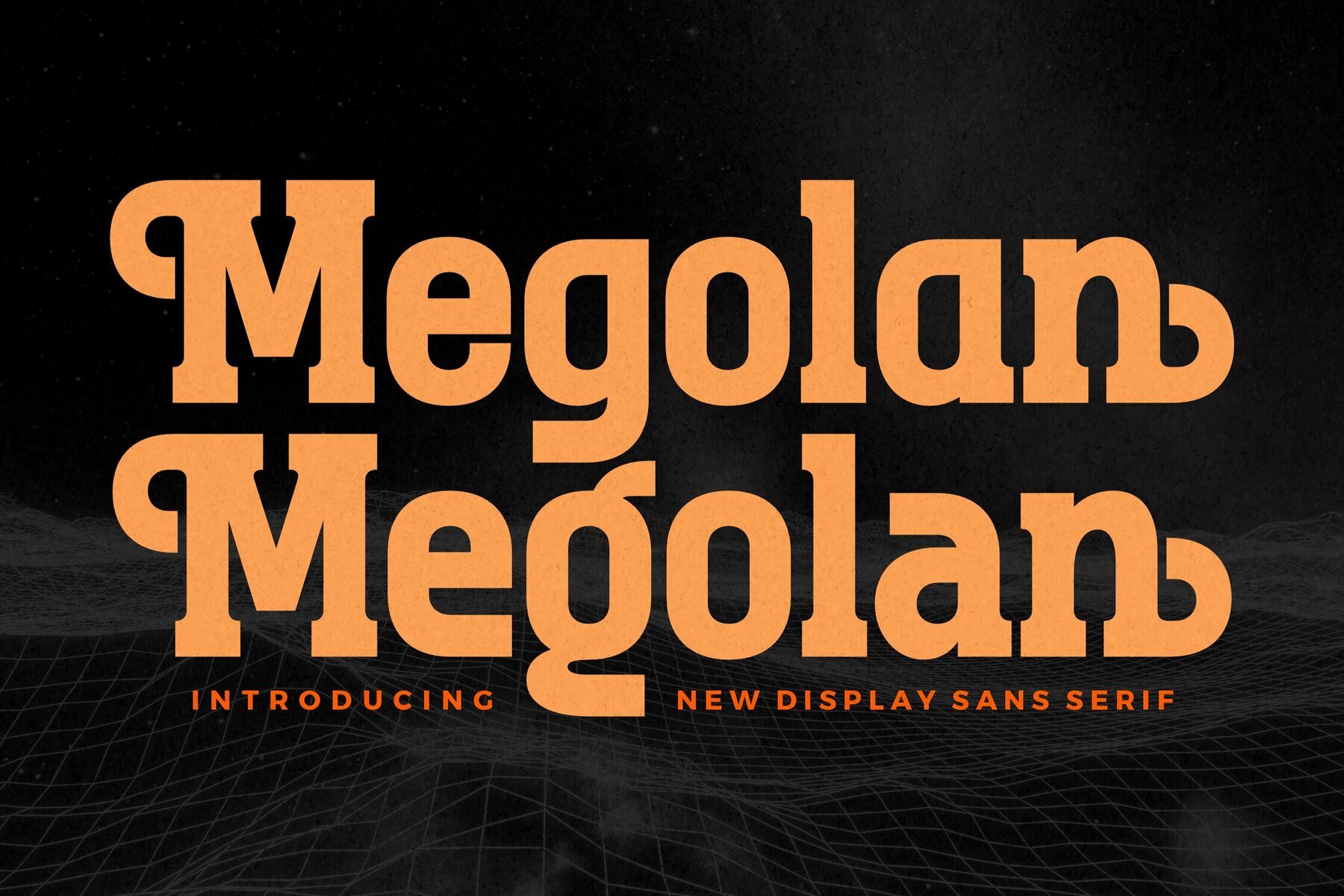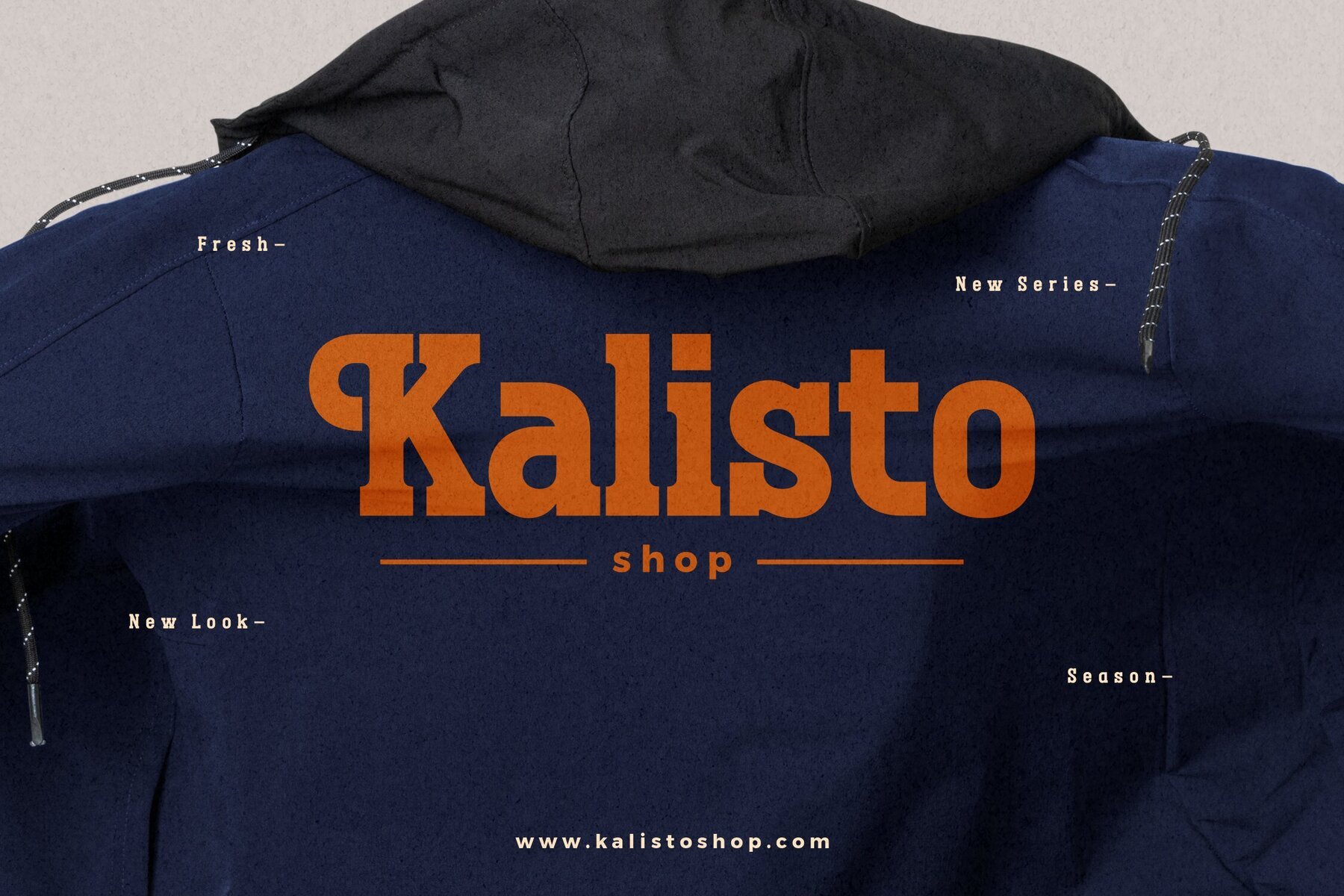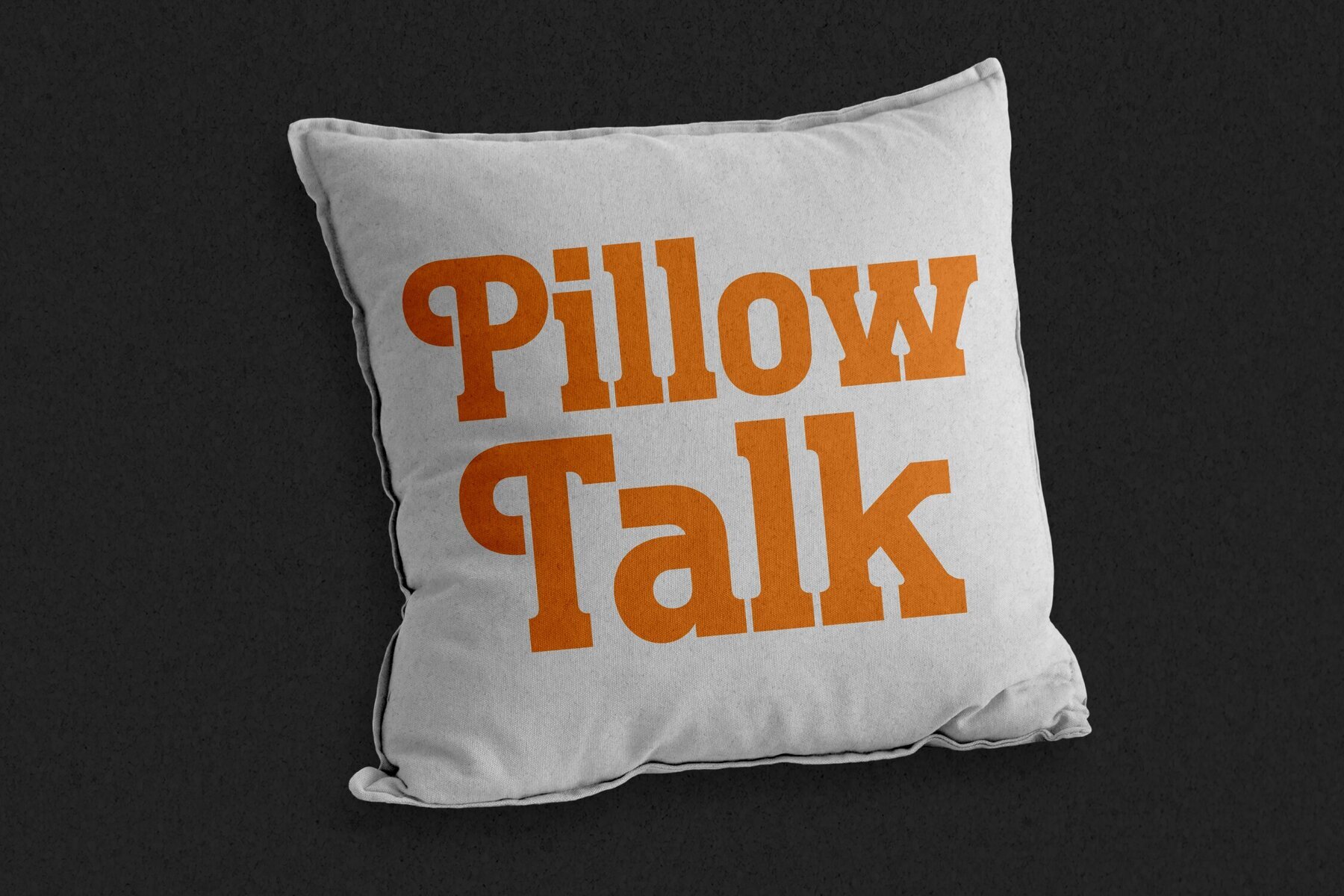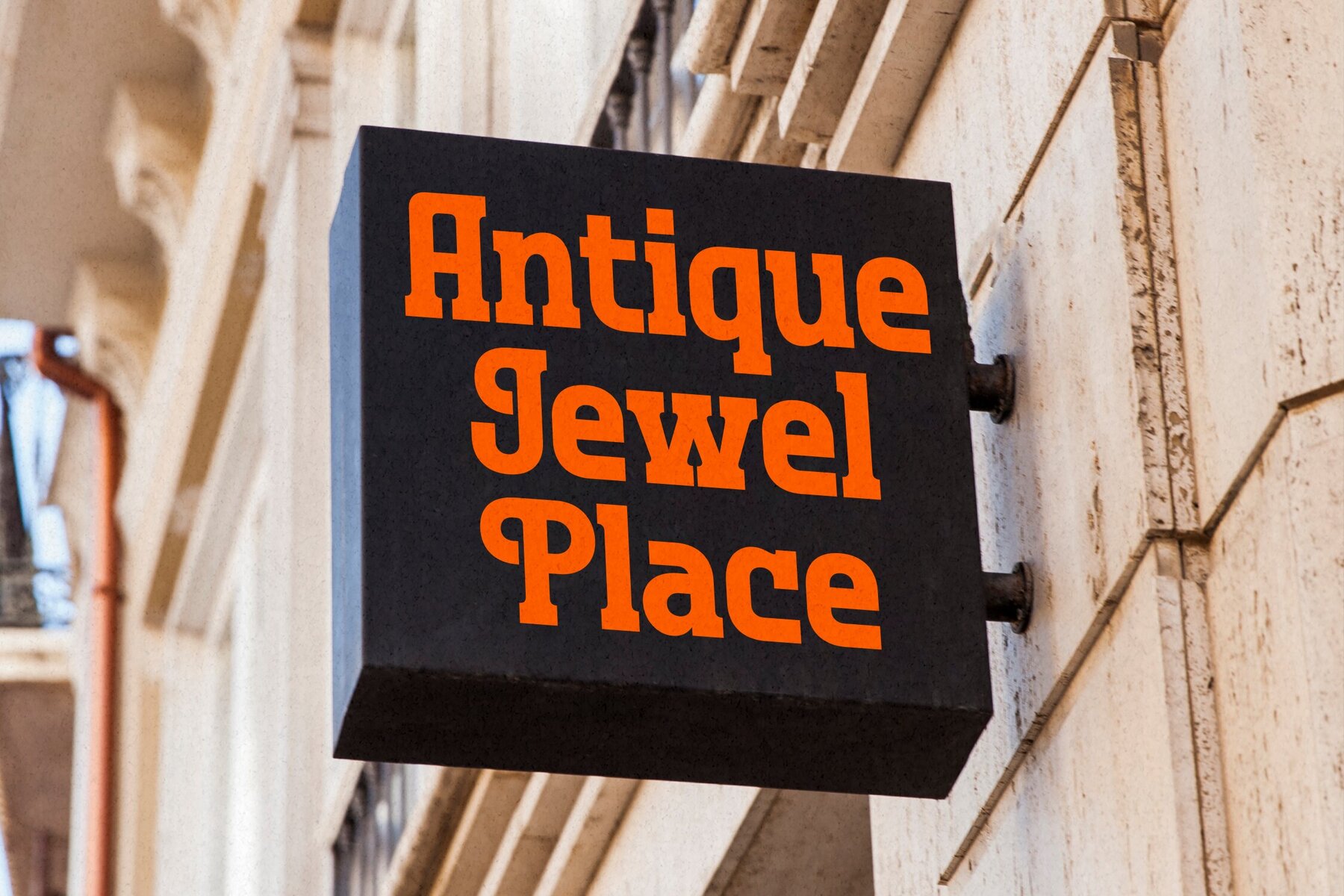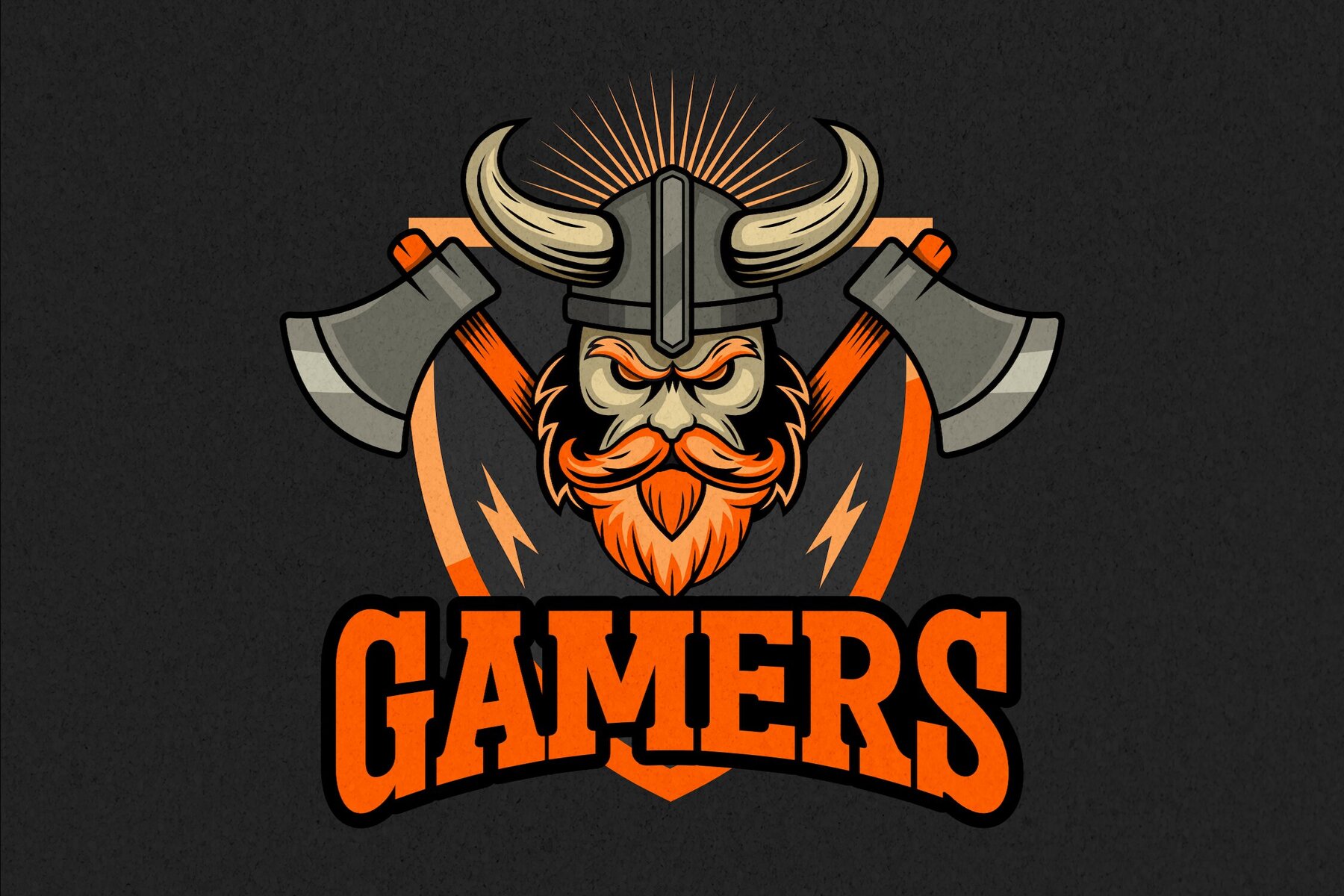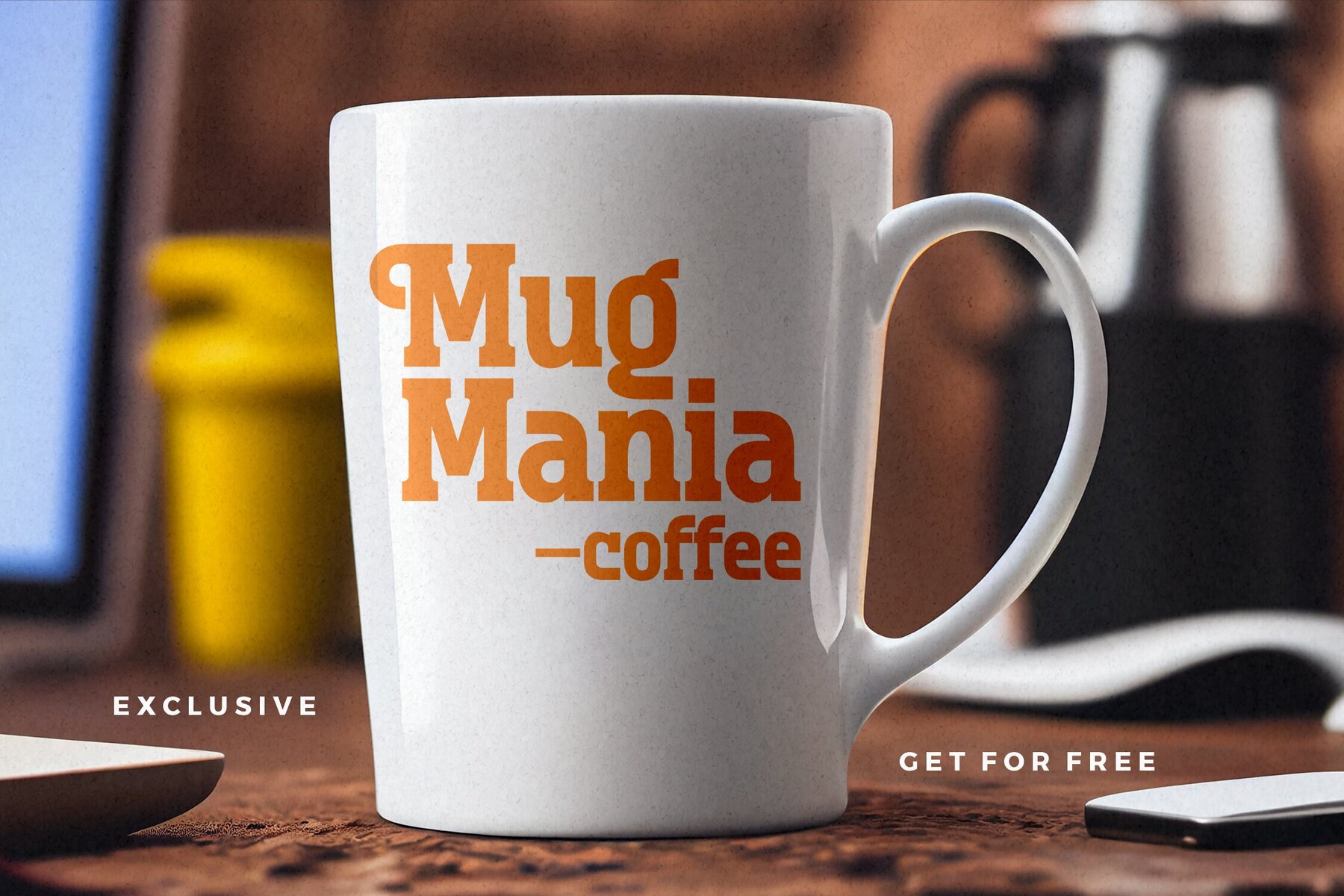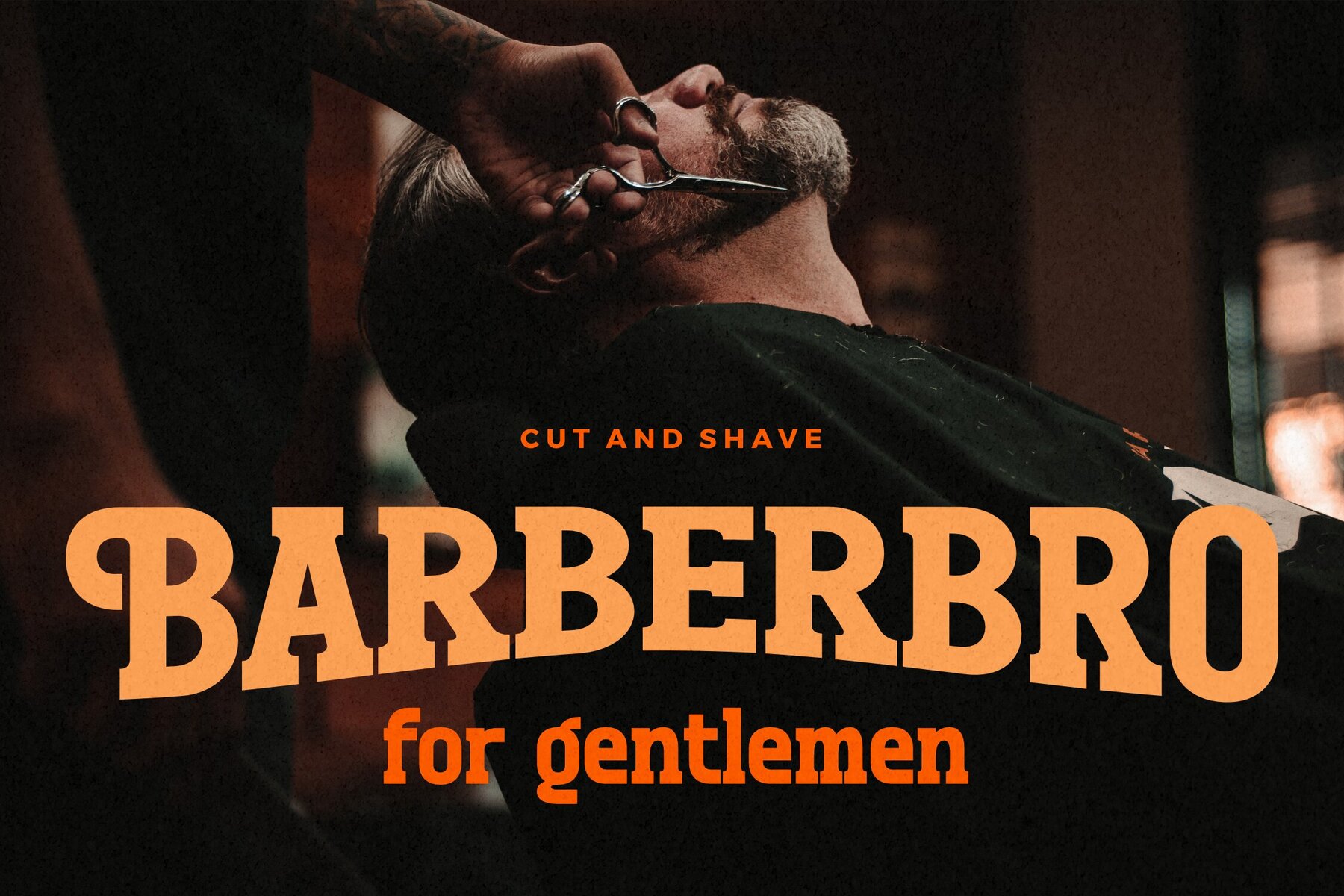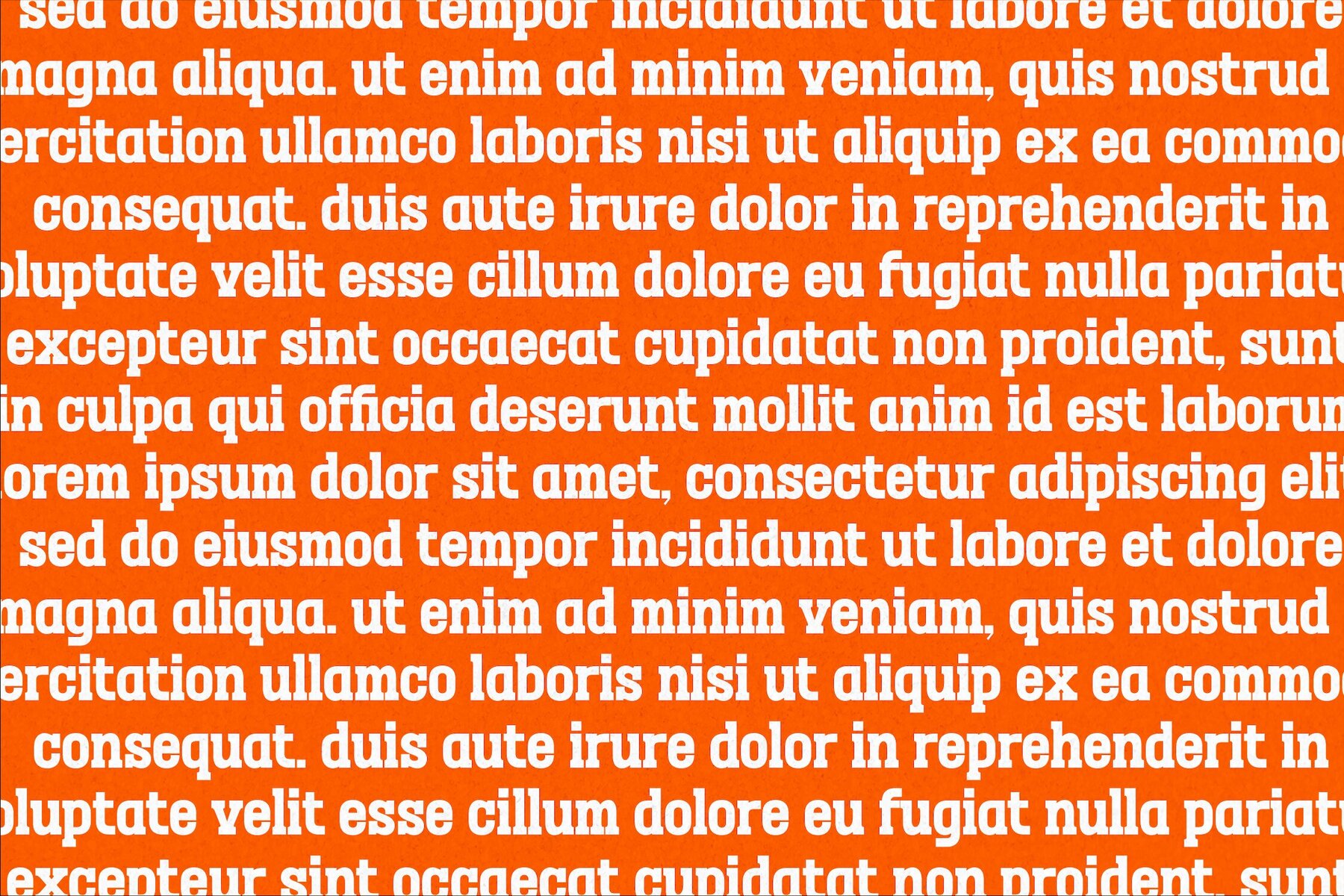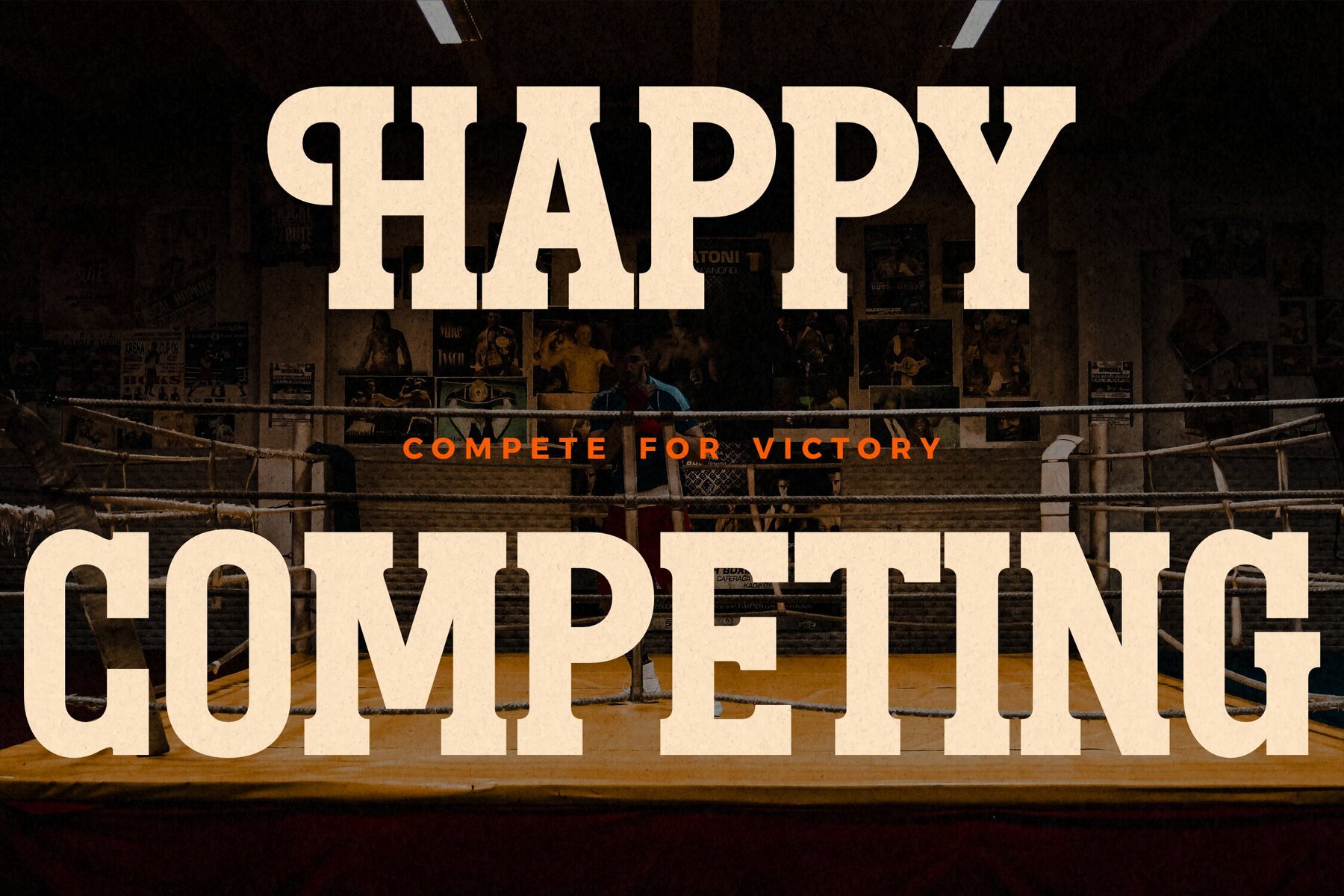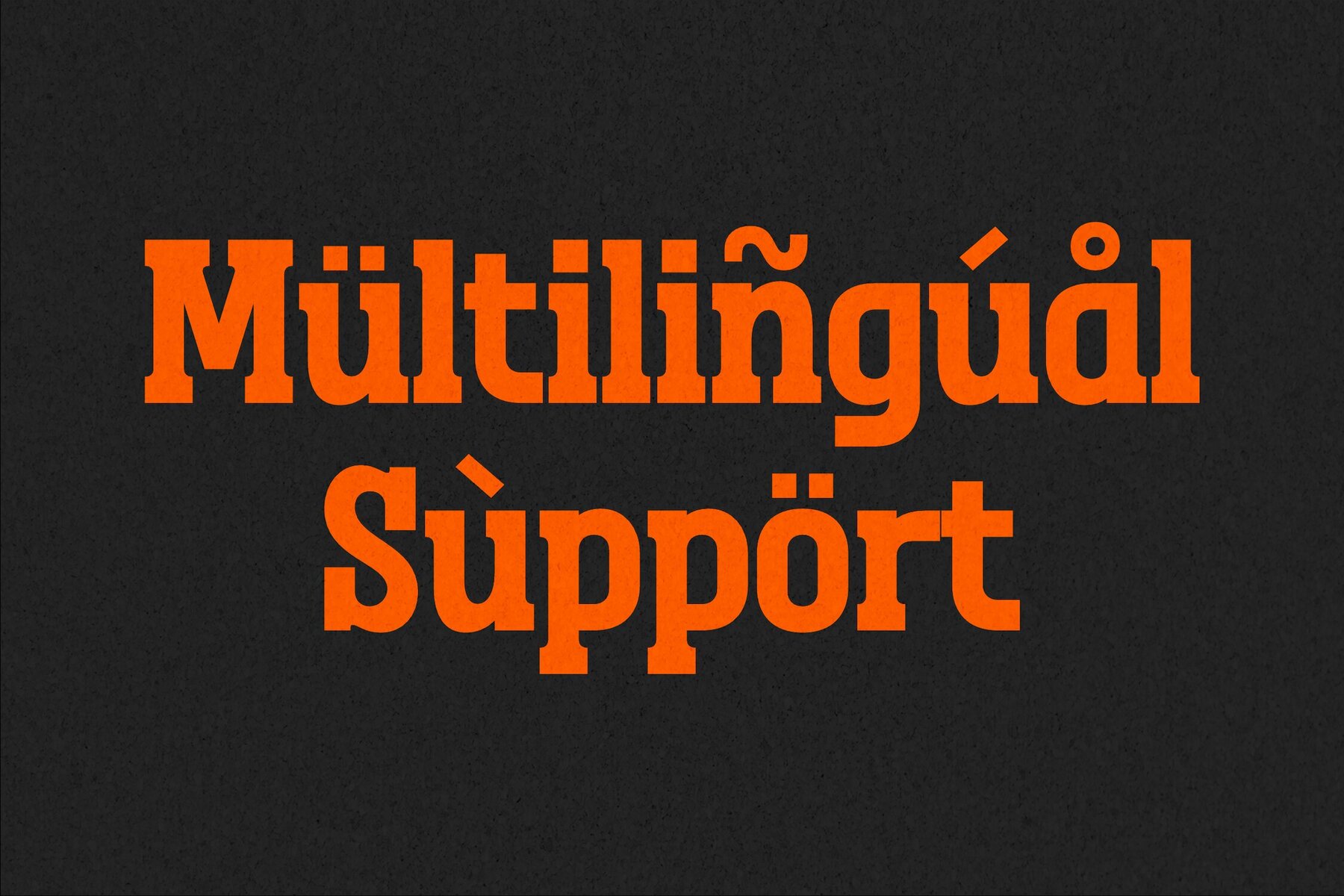
Megolan Font
Experience the artistry of Megolan—a modern and classic serif typeface that exudes its own unique charm. Ideal for adding a touch of elegance and luxury to your design projects, Megolan is a versatile choice for logos, magazine covers, fashion brands, and more. Its sophisticated appearance also makes it a perfect fit for book and movie titles, clothing lines, and inspiring quotes.Refined Sophistication with Megolan Typeface